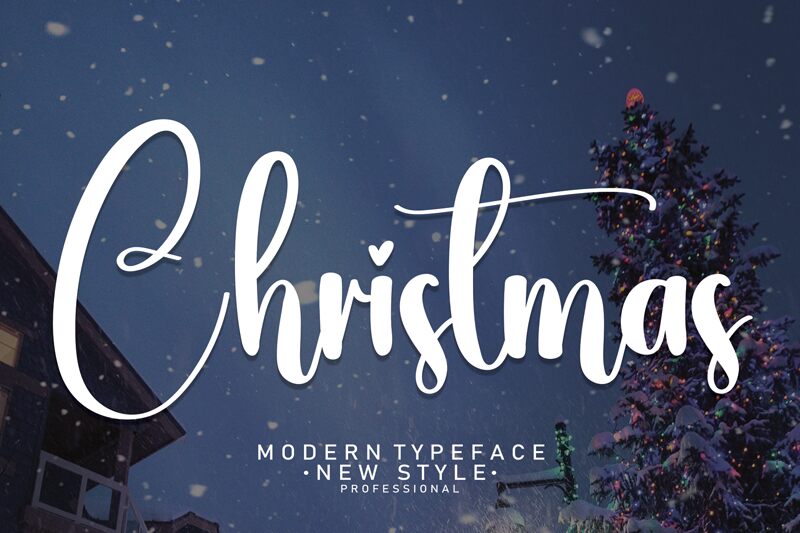
Christmas
The Christmas font, designed by scratchones, is a stunning modern calligraphy typeface that delivers an elegant and sophisticated look to your projects. Its semi-light weight enhances the font's delicate strokes and curves, making it perfect for wedding invitations, greeting cards, logos, and branding projects. The Christmas font adds a touch of class to any project and ensures that your message stands out with its unique style. Whether you're looking to create a romantic atmosphere or add a touch of sophistication to your brand identity, this semi-bold font is the perfect choice!
the latest style letters are perfect for wall displays, wedding invitations, social media post logos, advertisements, product packaging, product designs, labels, photography, watermarks, invitations, stationery, and any project that requires taste handwriting.